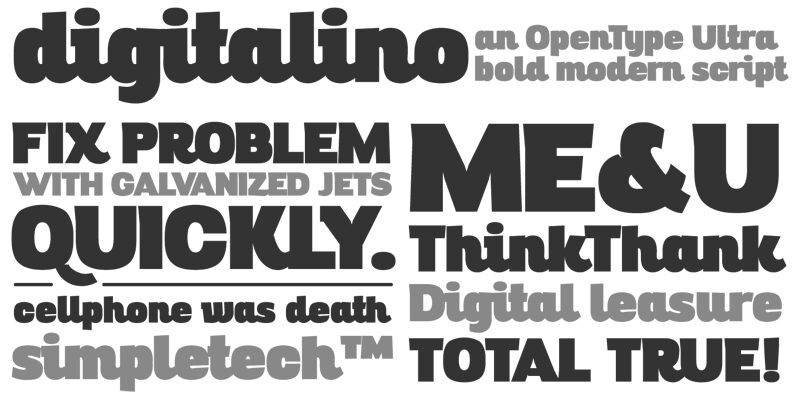
Digitalino from Studio Kmzero is a free modern display font with an exaggerated, ultra-heavy silhouette and deliberately unruly letter shapes. Its uneven widths make the lettering feel compressed and restless.
Music posters and streetwear branding both benefit from that blunt weight, which has the force of oversized sticker lettering rather than a conventional sans serif. It also suits festival graphics and youth-oriented product packaging, where the distorted curves can become part of the printed artwork as much as the wording itself.